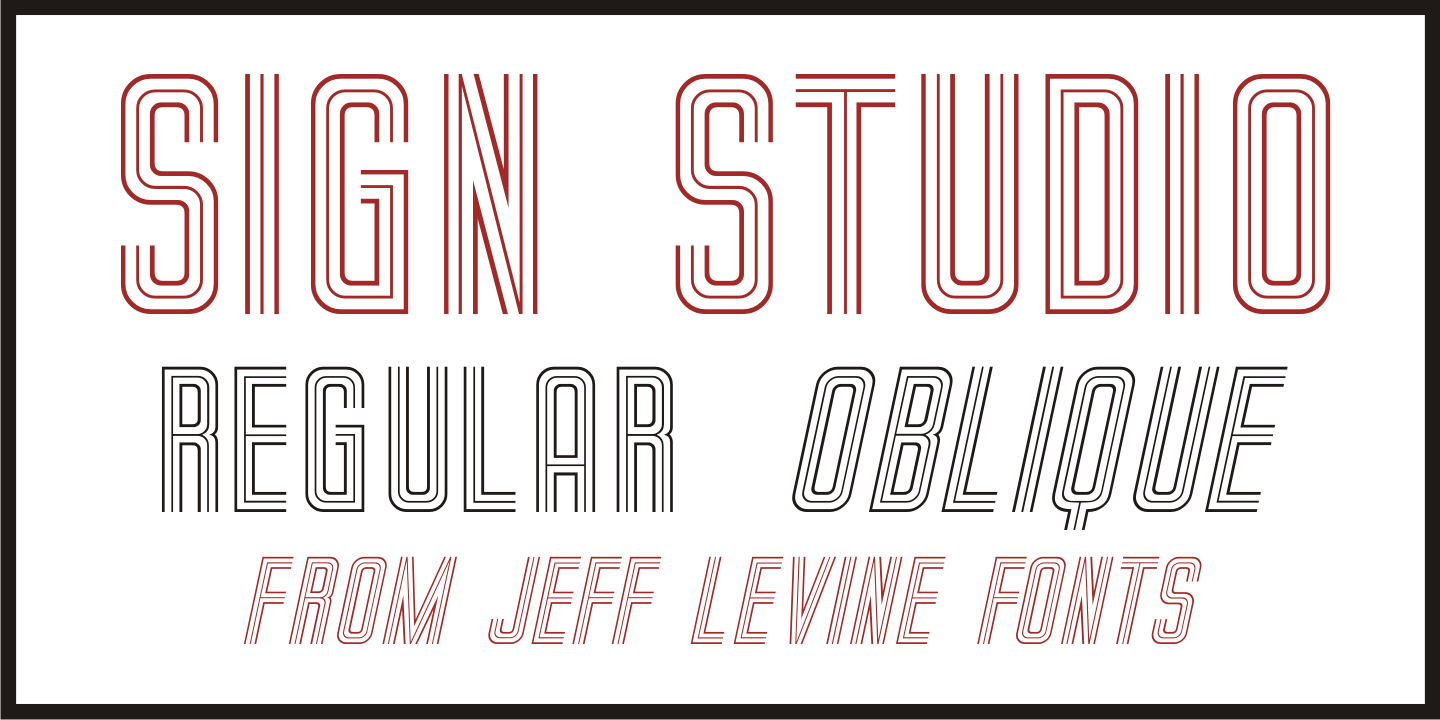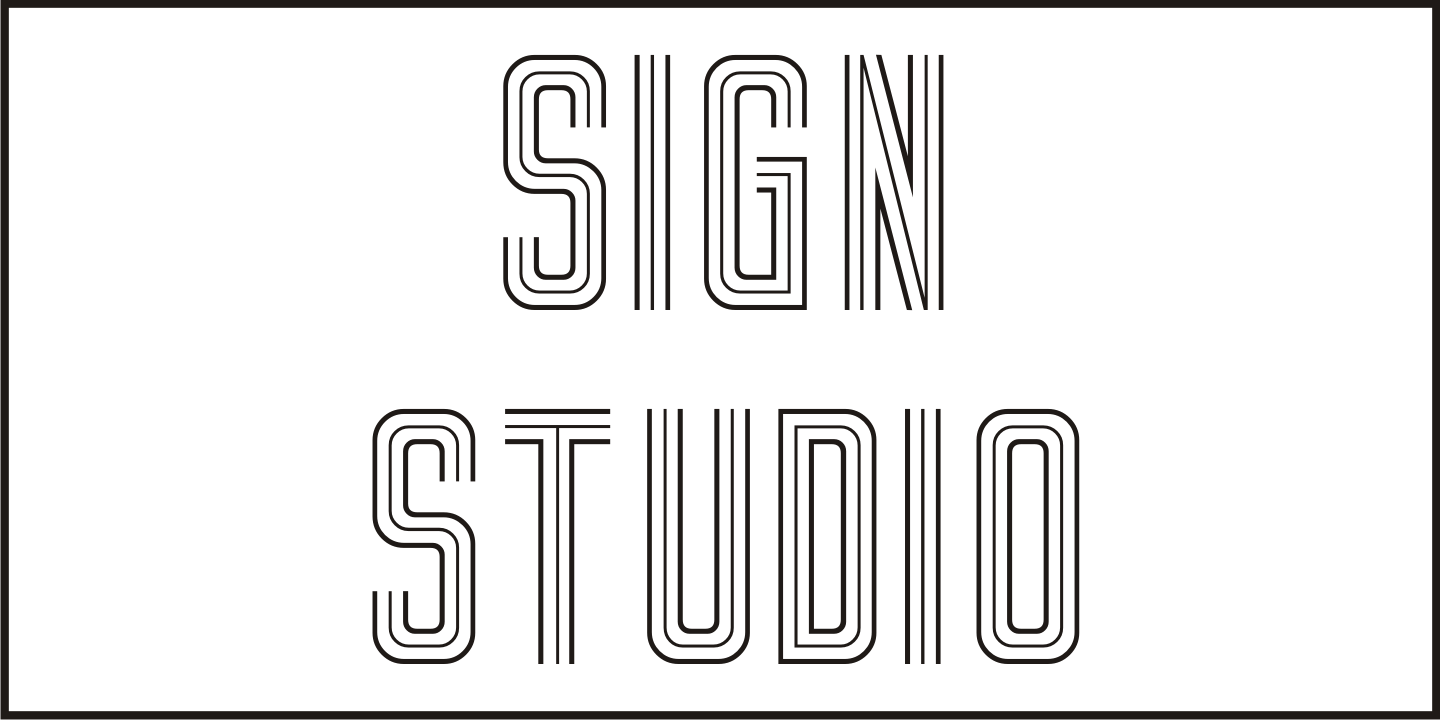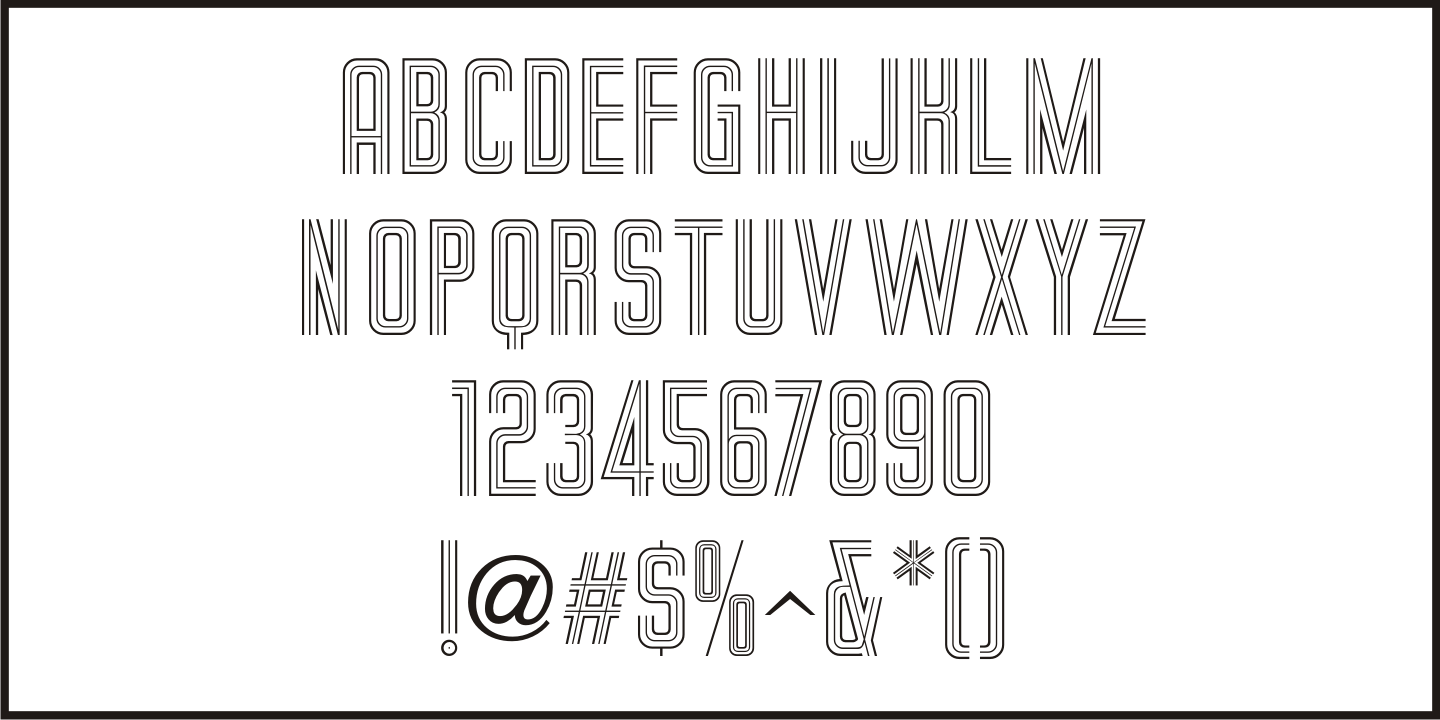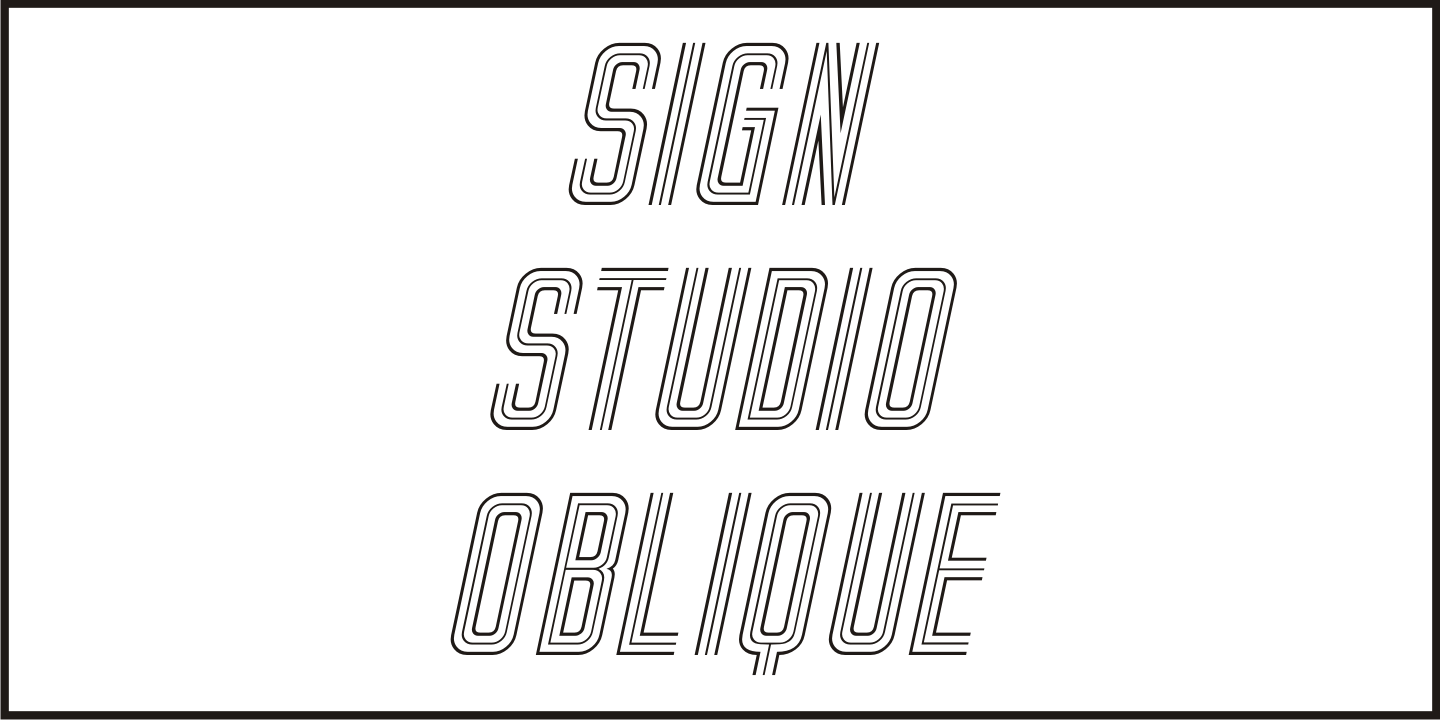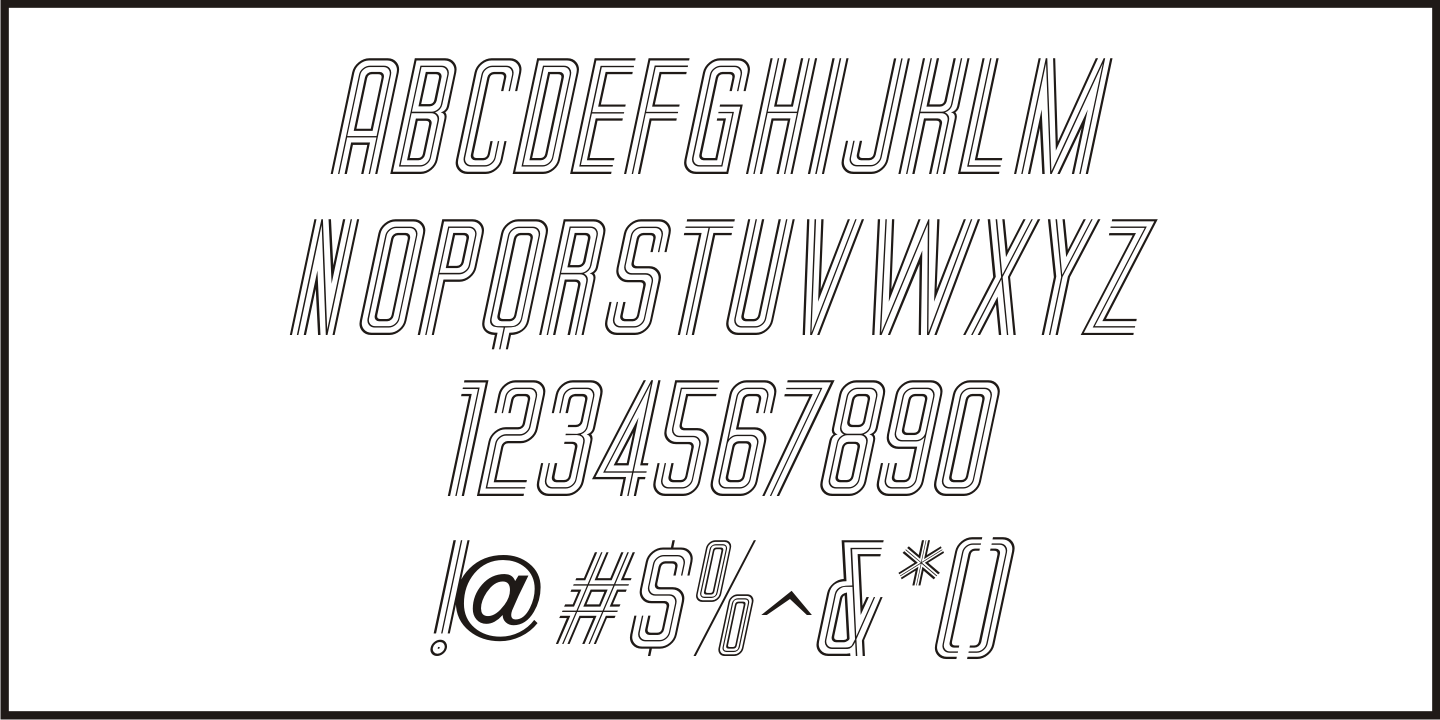
Sign Studio
The French lettering book Album de Lettres Arti (1949) displayed a number of examples of unique, stylized typefaces. One in particular features a multi-line sans serif in a classic Art Deco style with open-ended characters. This design is now available as Sign Studio JNL in both regular and oblique versions.
Sign Studio JNL Regular by Jeff Levine Fonts